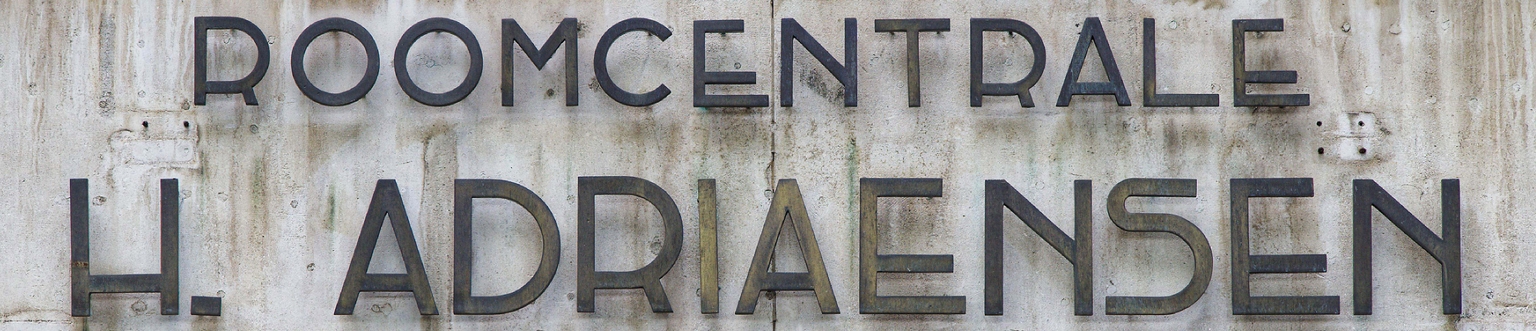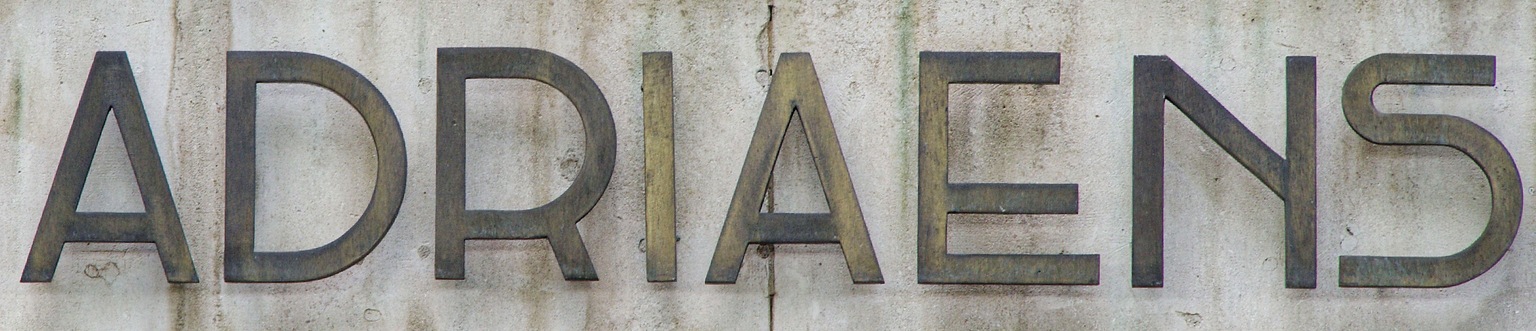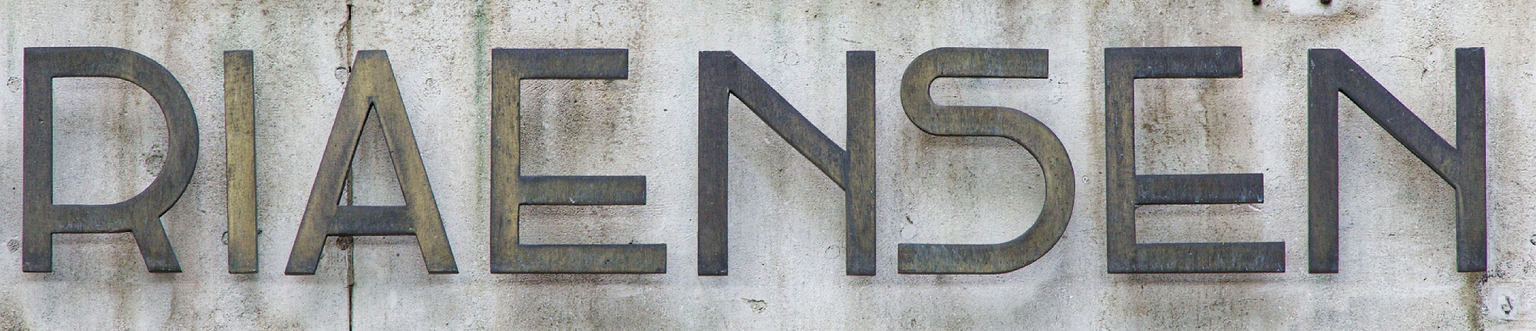
Sontag
This Deco-style font is based on the lettering found on the Roomcentrale H. Adriaensen building located at Cuperusstraat 7 in Antwerp, Belgium. The work was designed by architect Frans Cools. F. Cools, based in Hoboken likely began his career around 1920 and appears to have been active as an architect until the late 1950s. During the interwar period, his designs evolved from expressive brick architecture influenced by the Amsterdam School to a more restrained modernism.
In 2024, Ramiro Espinoza photographed the façade and, in 2025, used the images as inspiration to design a Deco-style geometric sans serif. The name Sontag is a tribute to author Susan Sontag.
This typeface stands out at large sizes and is well-suited for distinctive logos, clothing brands, movie posters, book covers, museum catalogs, websites, and brochure or magazine headlines.